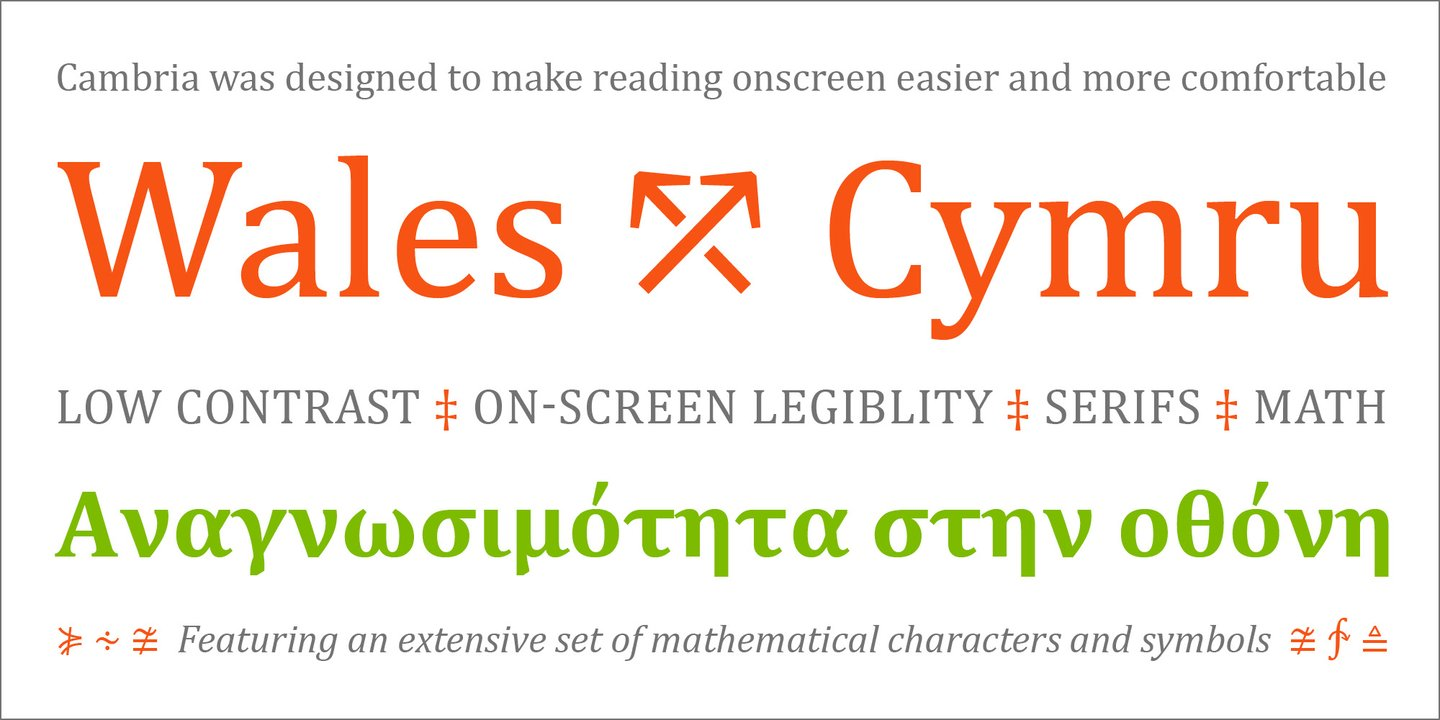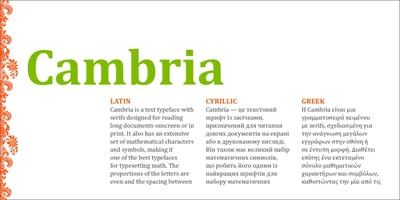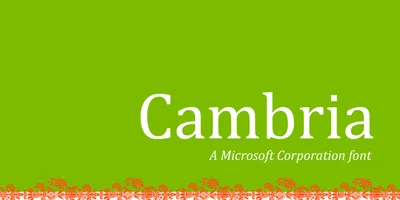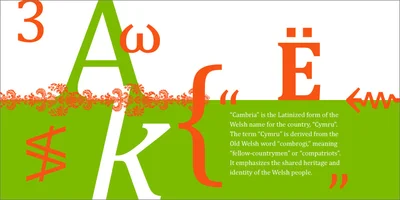
Cambria vs Verdana
Cambria is a serif typeface while Verdana takes a sans-serif approach. Where Cambria leans transitional, low contrast, Verdana brings humanist, wide. Compare which suits your Documents project.
| Feature | Cambria | Verdana |
| Classification | serif | sans-serif |
| Language Support | latin, latin-extended, cyrillic, greek | latin, latin-extended, cyrillic, greek |
| Source | Microsoft | Microsoft |
Recommended: Cambria
- transitional, low contrast design character
- Suited for Academic and Corporate
Consider: Verdana
- humanist, wide design character
- Suited for Web and Ui